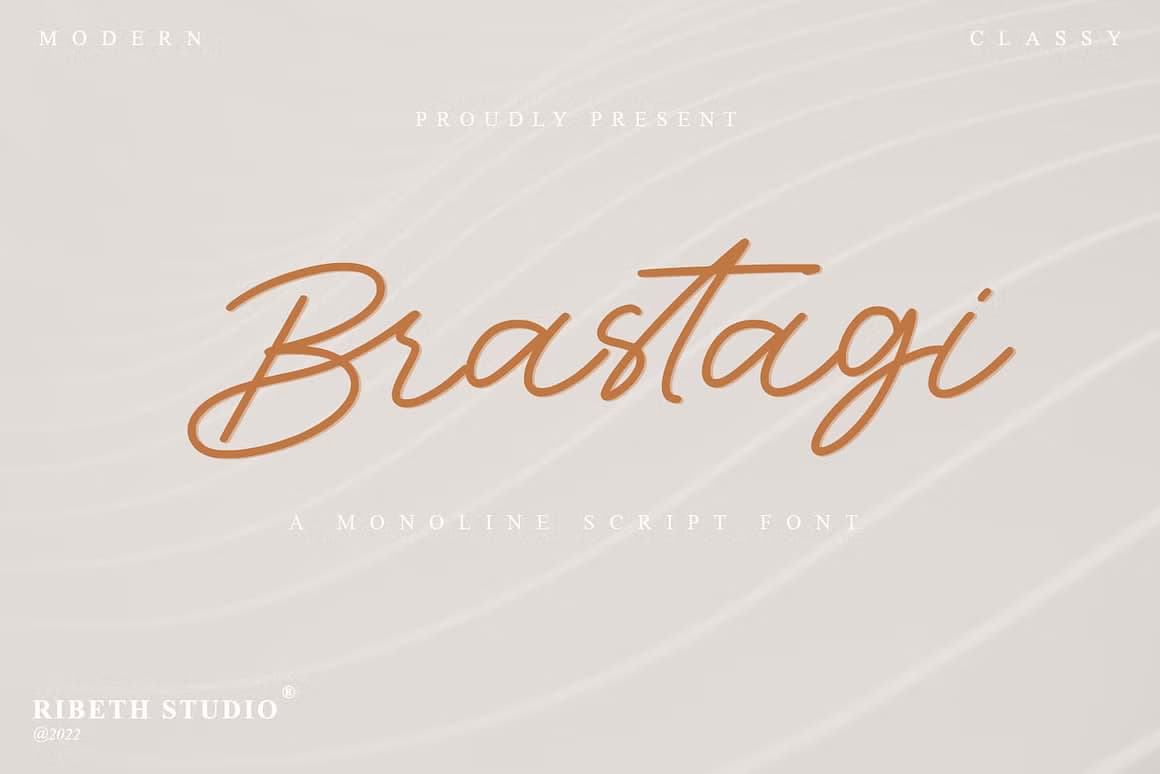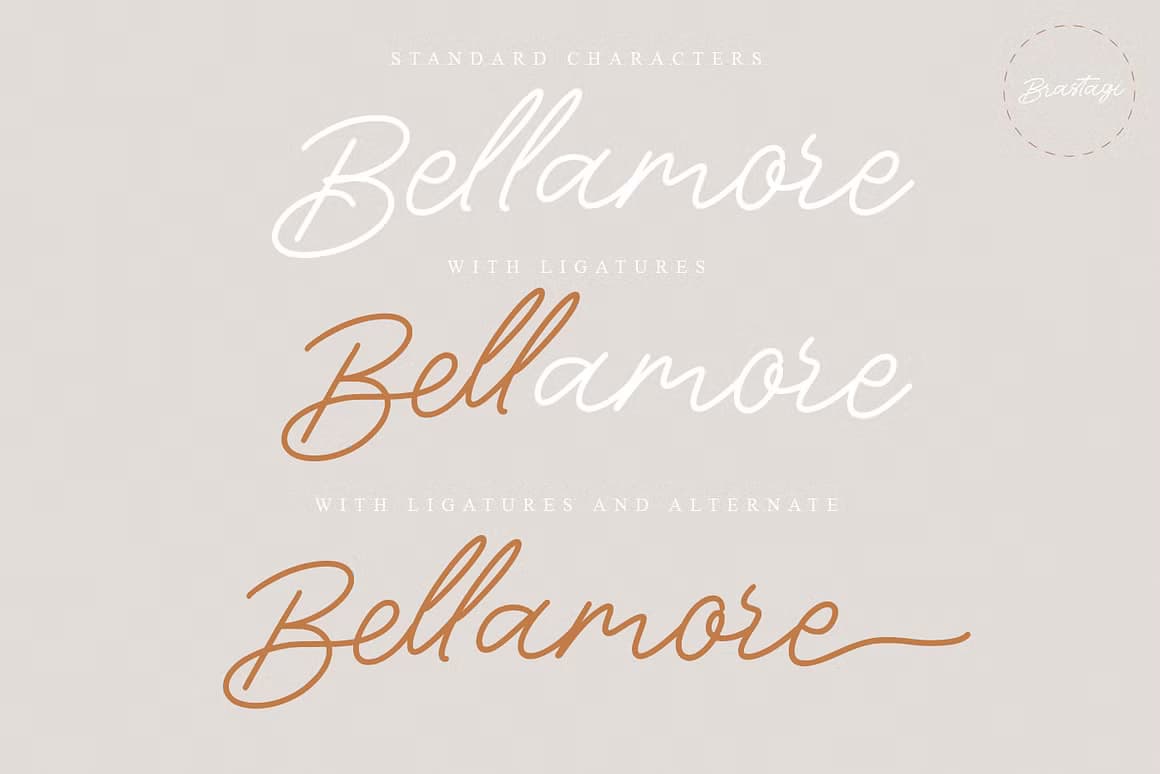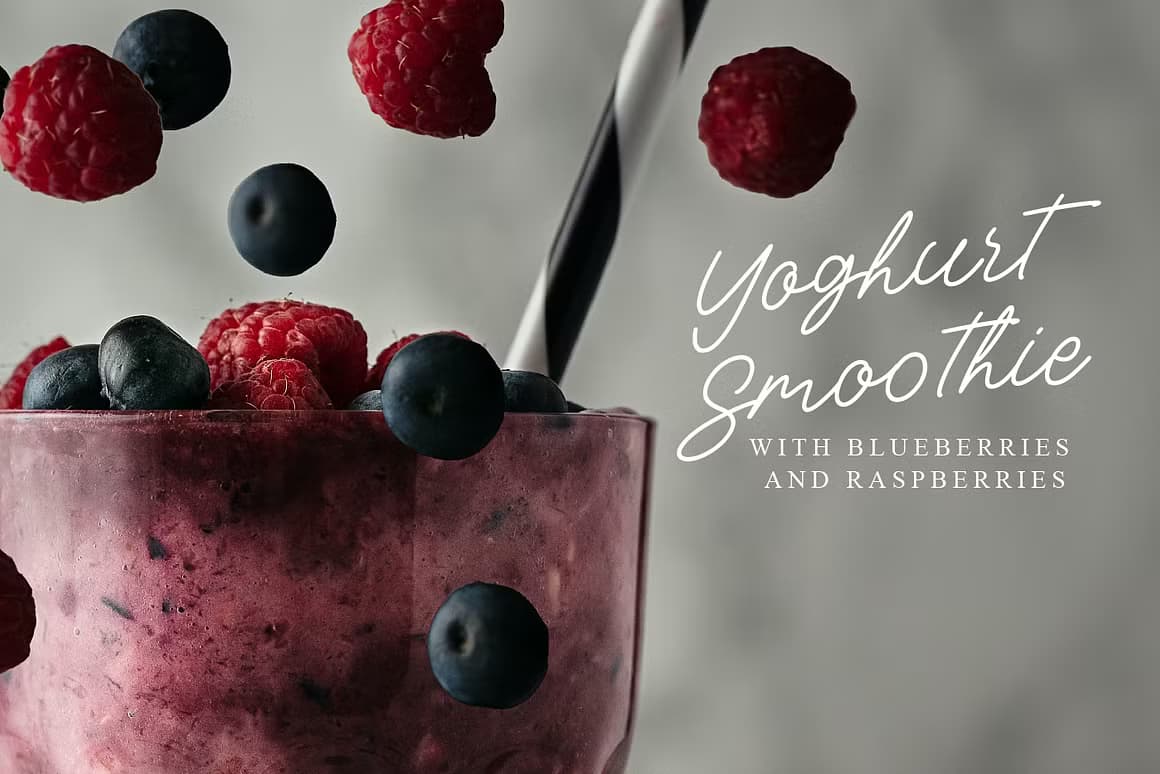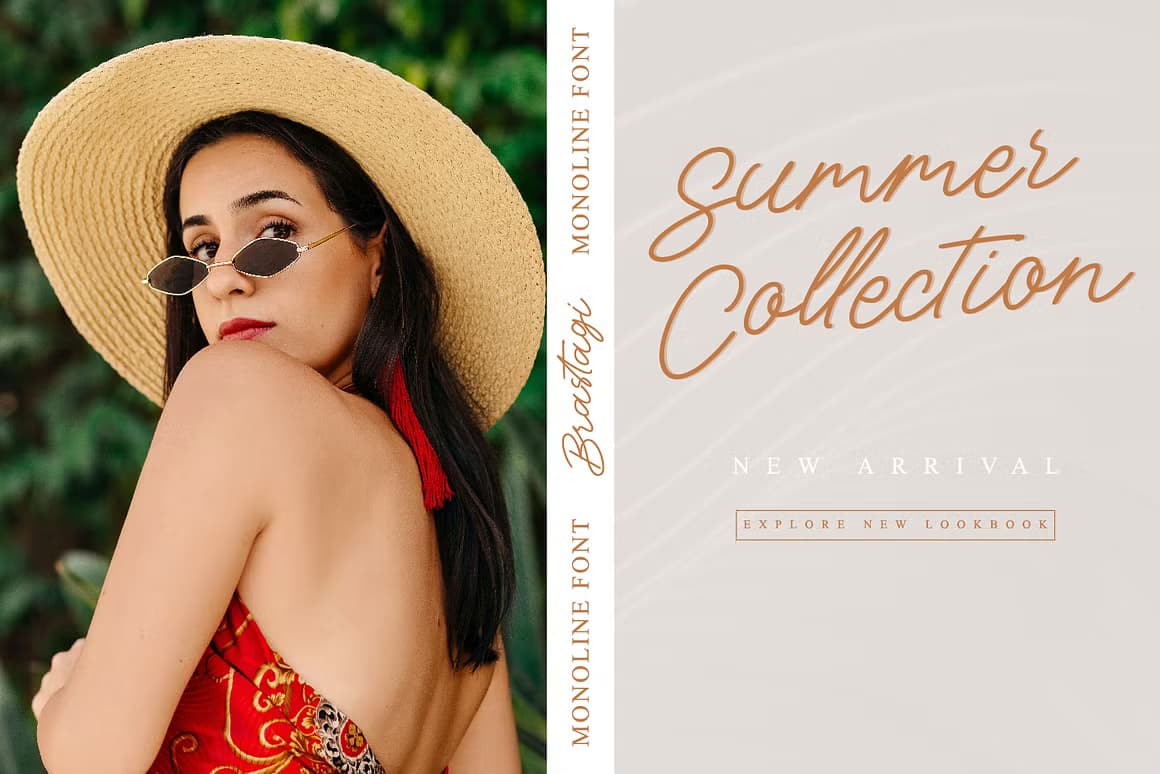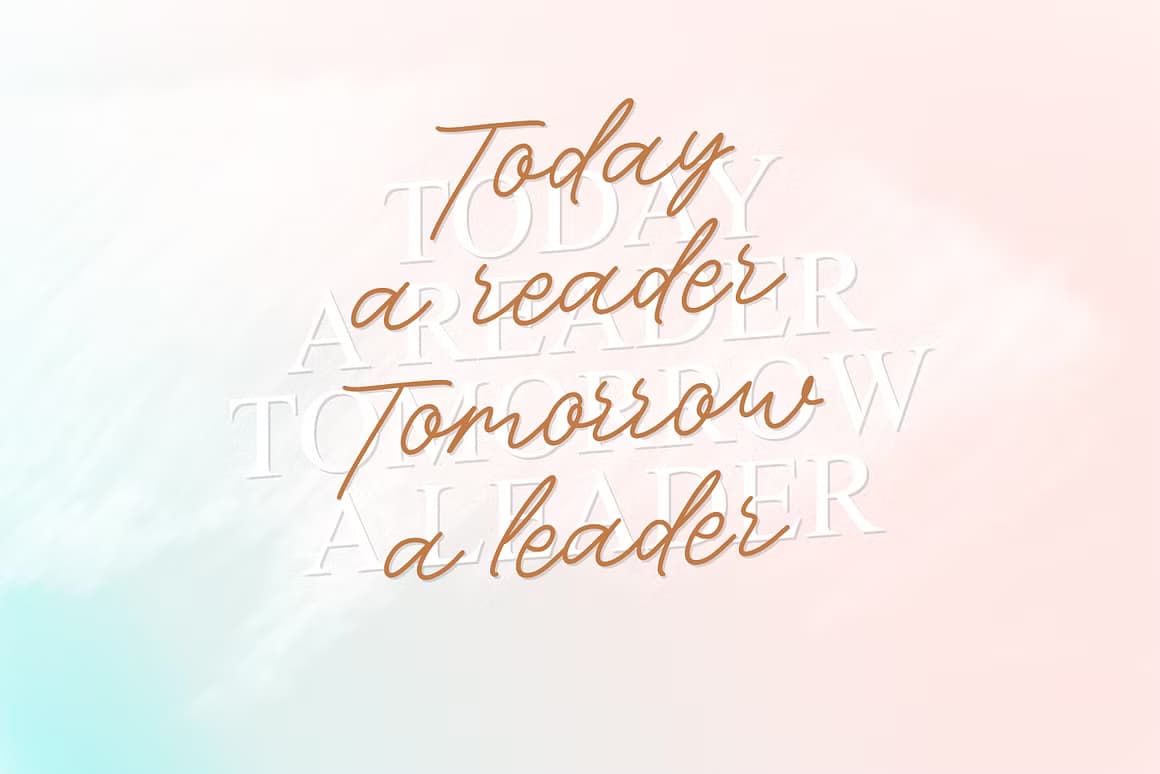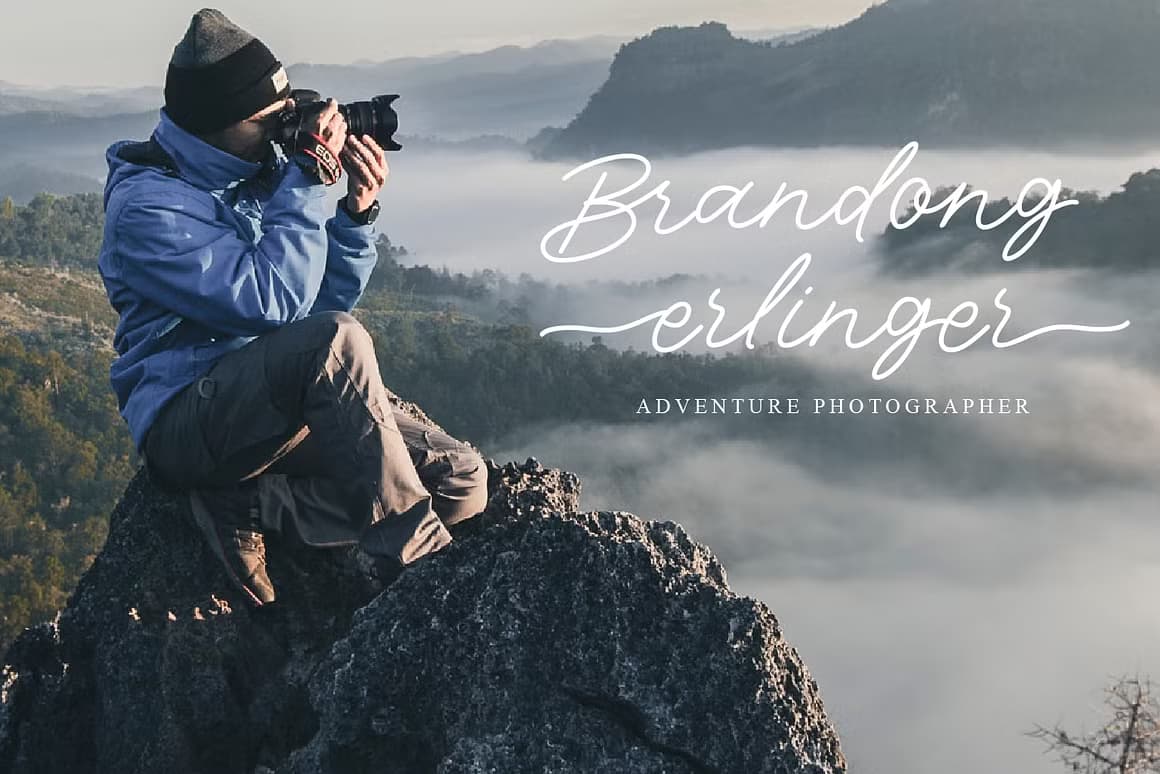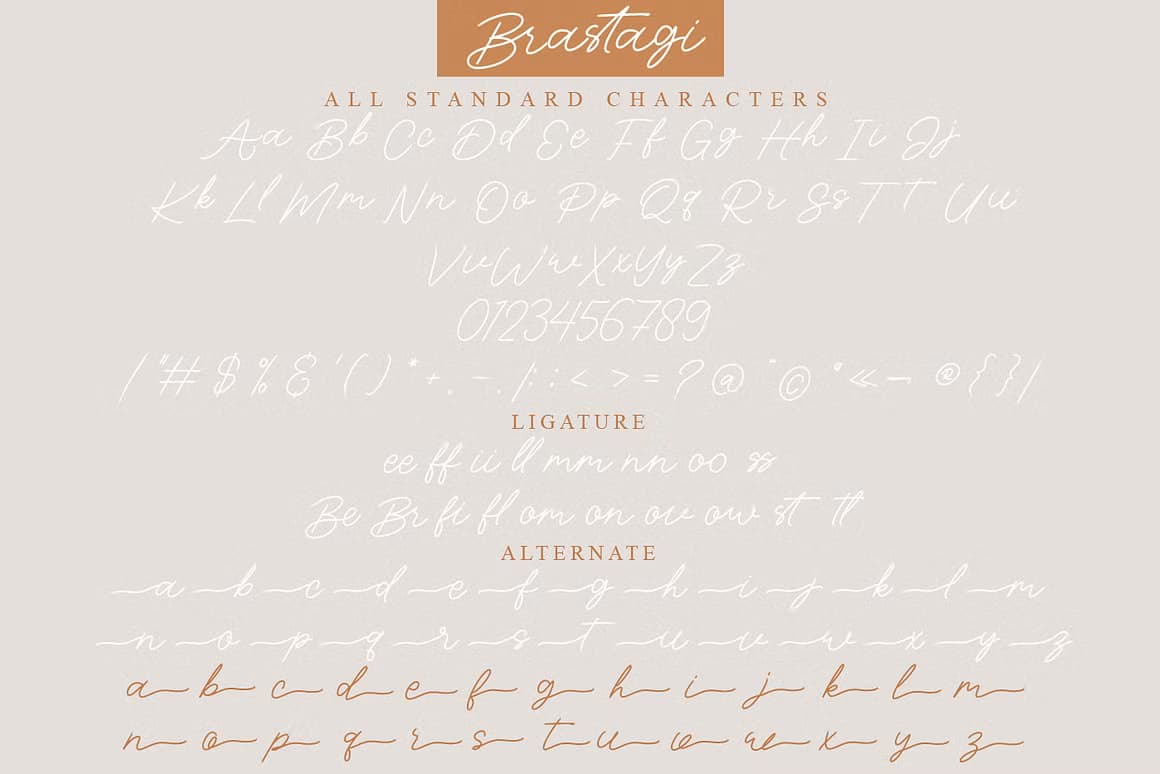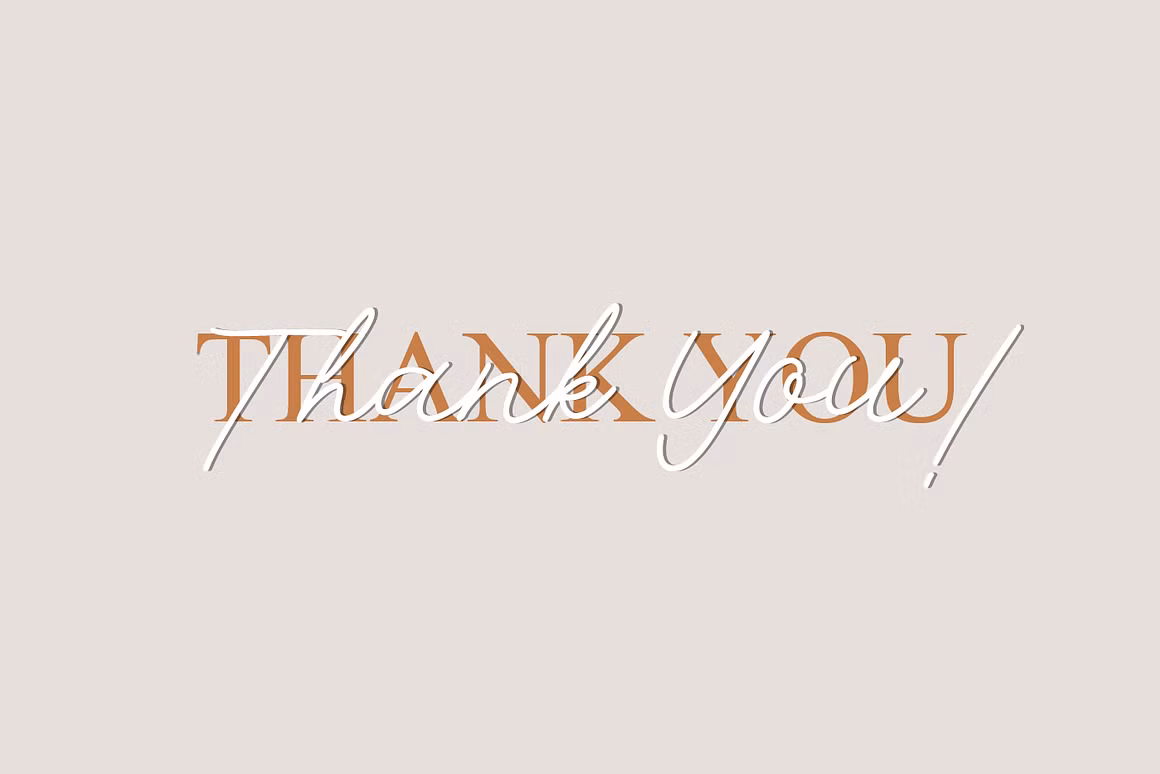
Brastagi is a font with ink effect & natural flow. there are several ligatures that make the combination of letters more beautiful. Handwritten original font that looks luxurious and beautiful.
Brastagi is perfect for branding projects, logos, wedding designs, social media posts, advertisements, product packaging, product designs, labels, photography, watermarks, invitations, stationery, and any project that requires a sense of handwritten signature.
- Ligatures
- Alternates
- Swash